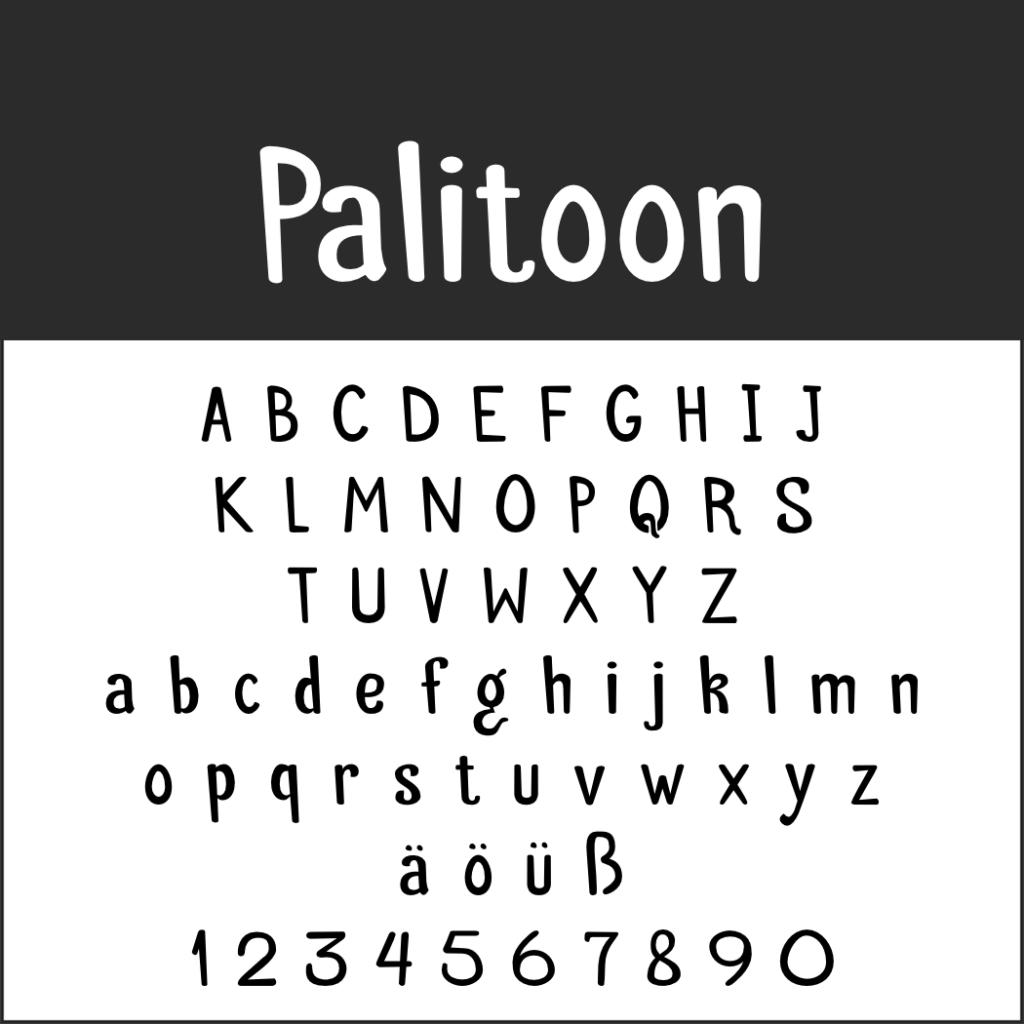
Palitoon Regular Font . Palitoon is a headline type font that can be used on any device such as pc, mac, linux, ios. Web palitoon regular | 269 glyphs.
Palitoon Regular Font - ️ this font has been downloaded 1,000+ times. Palitoon is a headline type font that can be used on any device such as pc, mac, linux, ios. Web palitoon is a free font for commercial use created by daniel maciel. Free added feb 22 2019. This display brushlike typeface is appropriate for projects aiming at children or.
Palitoon Regular Font - Palitoon is a headline type font that can be used on any device such as pc, mac, linux, ios. This display brushlike typeface is appropriate for projects aiming at children or. Free added feb 22 2019. Web palitoon is a free font for commercial use created by daniel maciel. Web download palitoon font · free for commercial use ·.